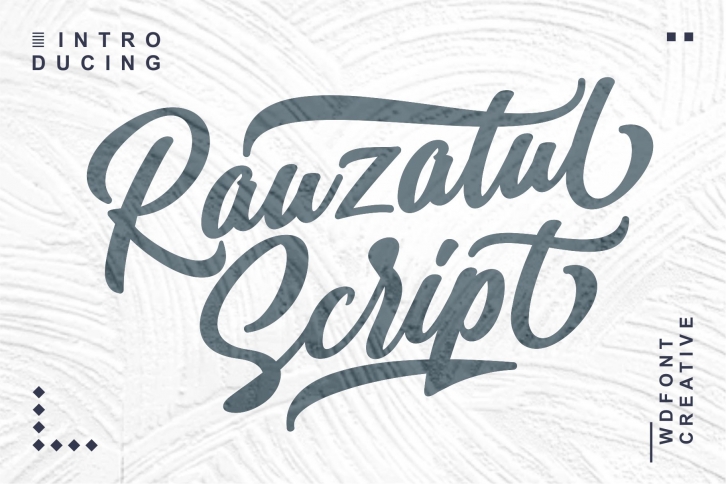
Rauzatul Script is a great font that was designed by wdfont. Imagine the amount of combinations you can create using this font! The archive is 3.76 MB and it was released on November 18, 2019. Rauzatul Script looks beautiful on wedding invitations, greeting cards, logos, posters, labels, t-shirt designs, logos, business cards and is perfect for use in ink or watercolor works, fashion, magazines, packaging and food menus, children's books and more!